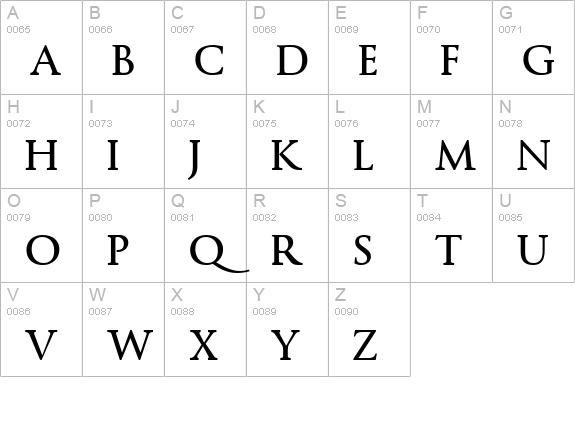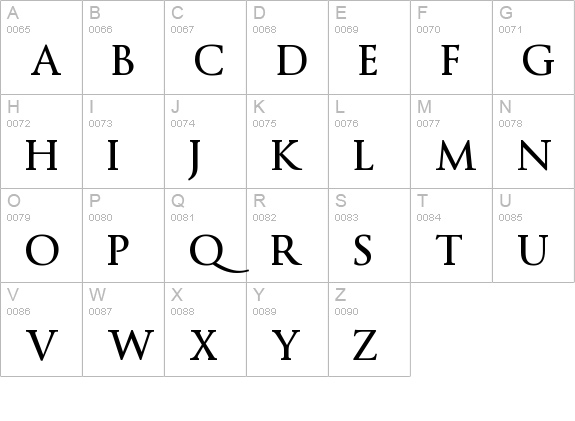
Byington-Regular is the standard, neutral variant in the Byington typeface family \xE2\x80\x94 well suited to general body text, paragraphs, and standard typographic work.
Byington-Regular is a classic and elegant serif font that exudes sophistication and timeless charm. Its clean lines and balanced proportions make it perfect for a wide range of design projects, from invitations to branding to editorial layouts. With its versatile and easy-to-read design, Byington-Regular is a go-to choice for designers looking to add a touch of elegance to their work. The best part? Byington-Regular is completely free to download at FontsMarket.com. Whether you're a seasoned designer or just starting out, this font is a valuable addition to your collection. Don't miss out on the opportunity to elevate your designs with Byington-Regular's timeless appeal and versatility. Download it today and see the difference it can make in your projects.